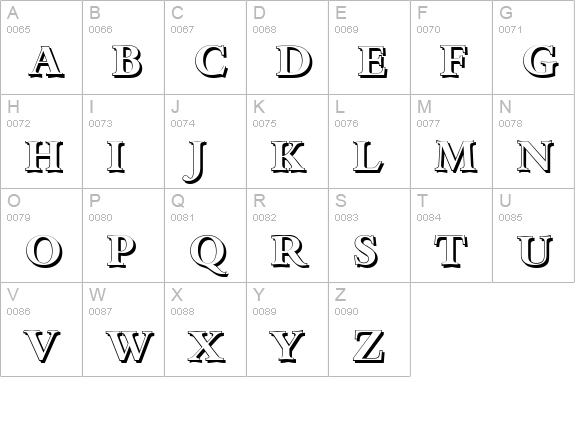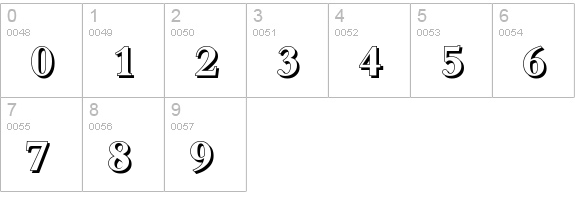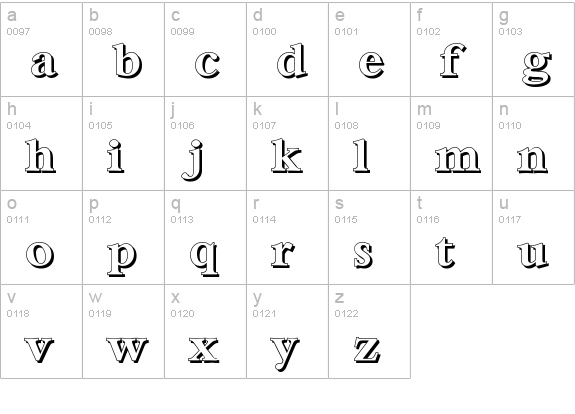
BernsteinShadow-Bold is a strong, high-contrast variant in the BernsteinShadow typeface family \xE2\x80\x94 well suited to headlines, attention-grabbing titles, and strong calls-to-action.
BernsteinShadow-Bold is a striking and bold font that exudes a sense of strength and elegance. Its sharp edges and shadow effects make it perfect for creating eye-catching designs that demand attention. This font is versatile and can be used for a variety of purposes, from branding to posters to packaging. The best part? BernsteinShadow-Bold is available for free download at FontsMarket.com. Whether you're a graphic designer looking to add a touch of sophistication to your projects or a business owner seeking a distinctive font for your brand, BernsteinShadow-Bold is sure to make a statement. Don't miss out on this opportunity to enhance your designs with this stunning font.